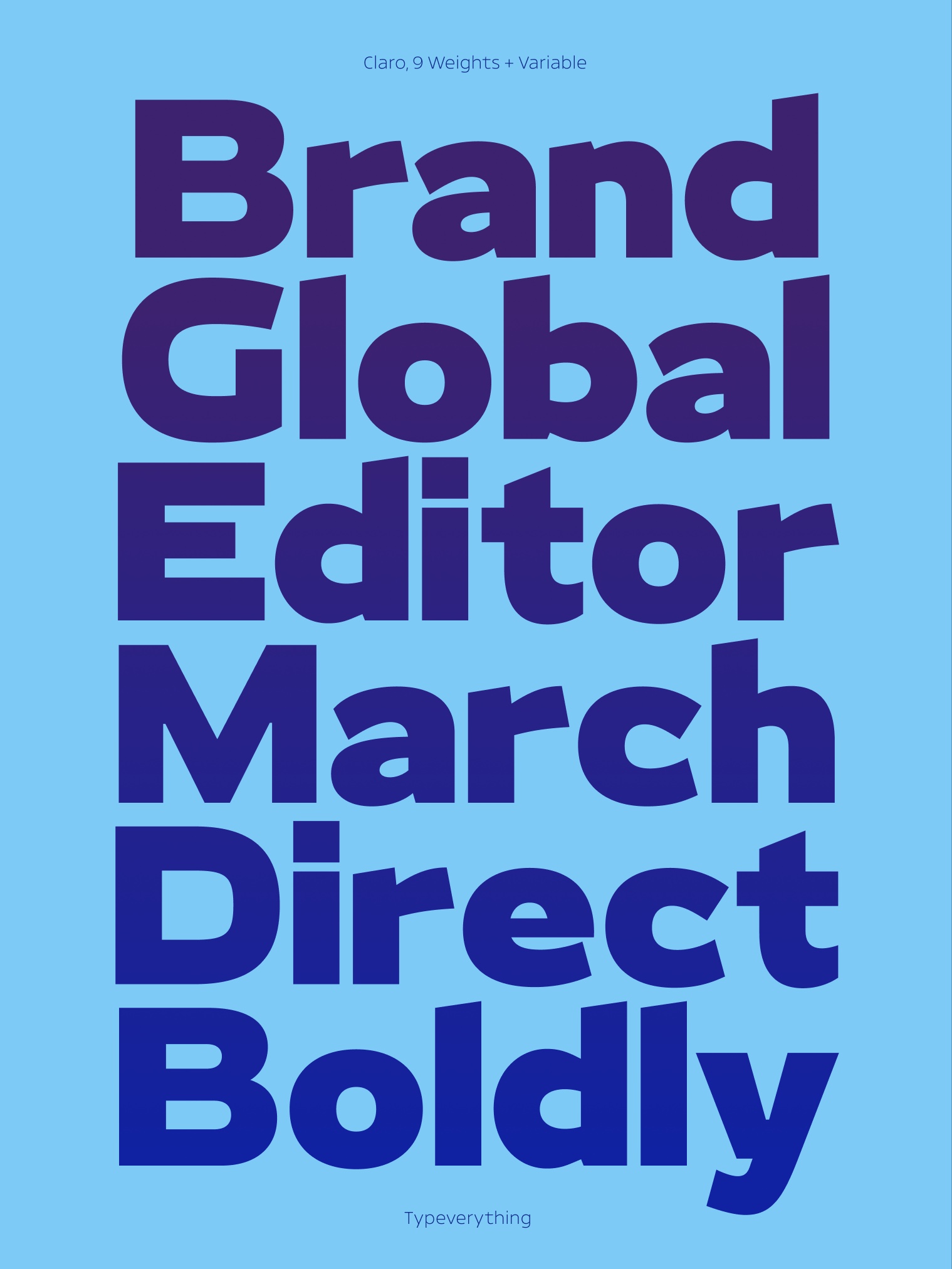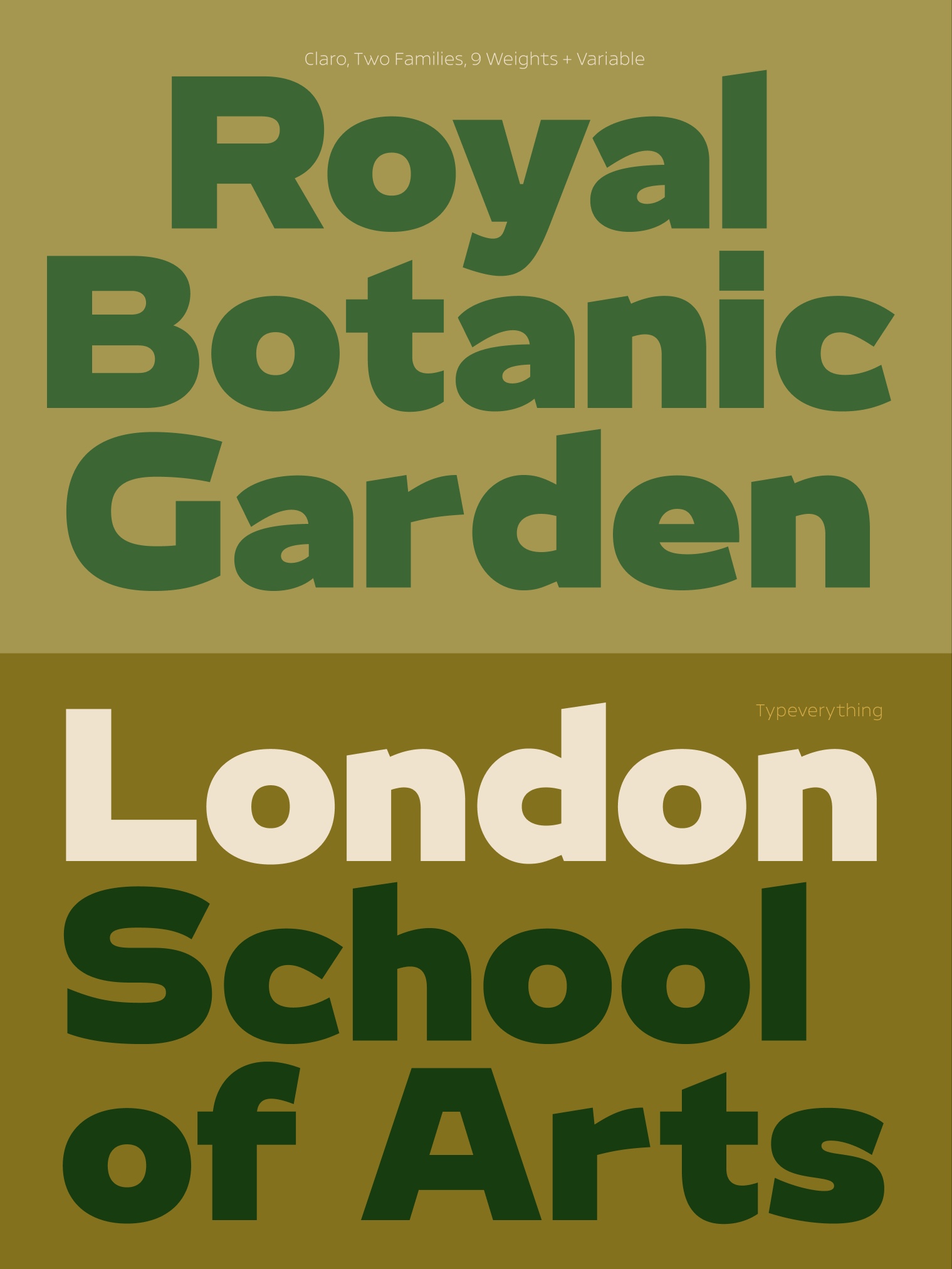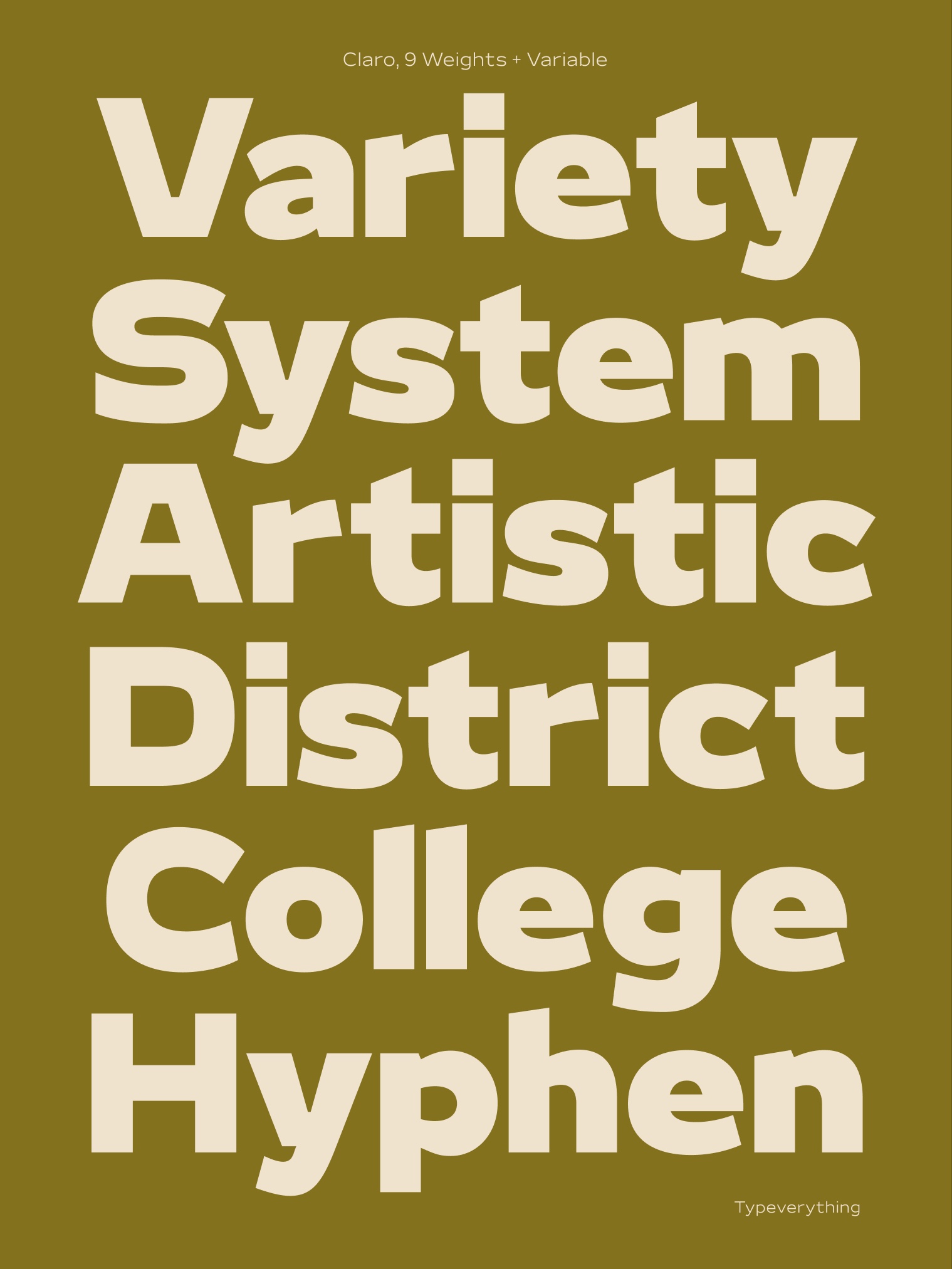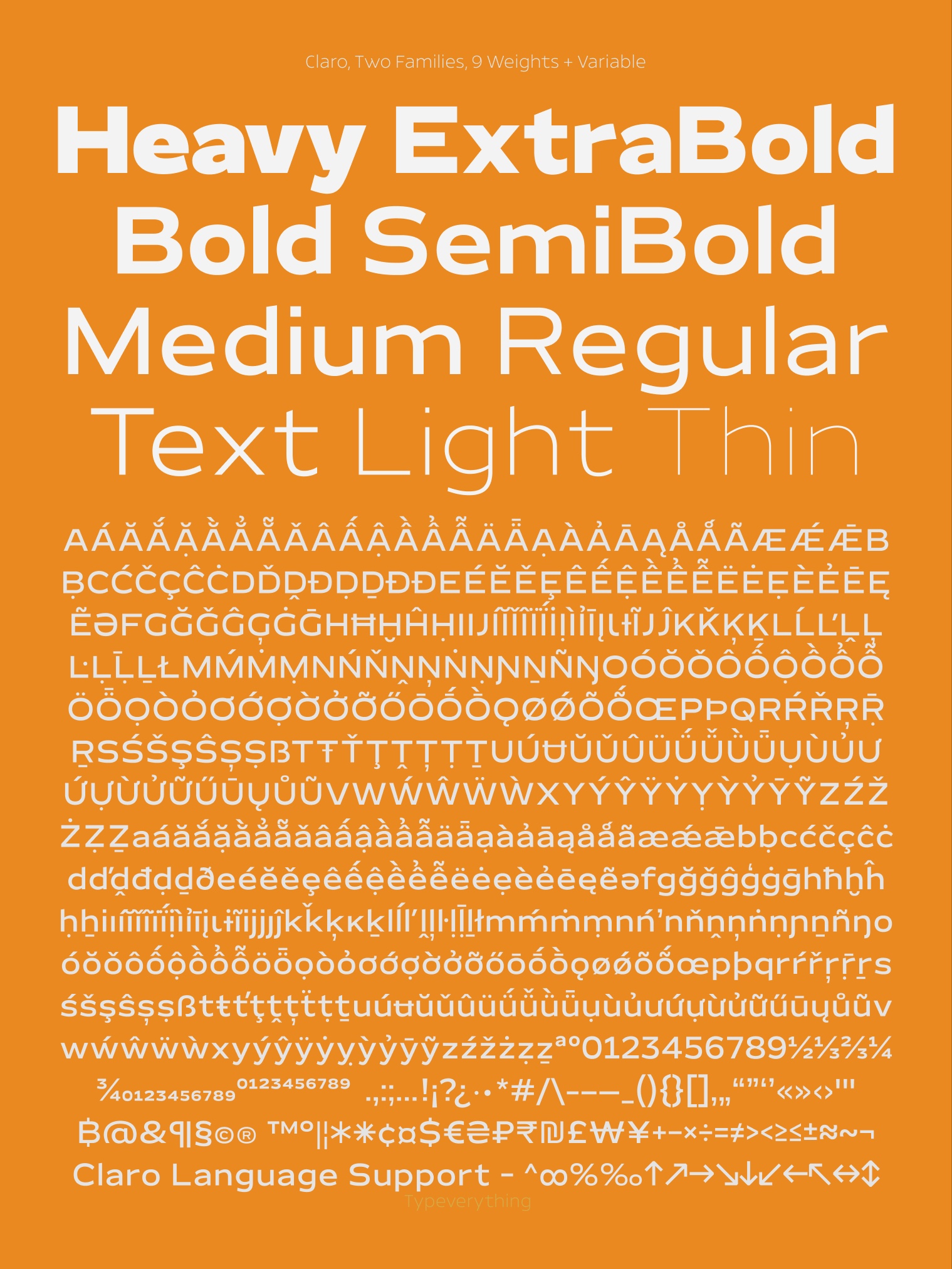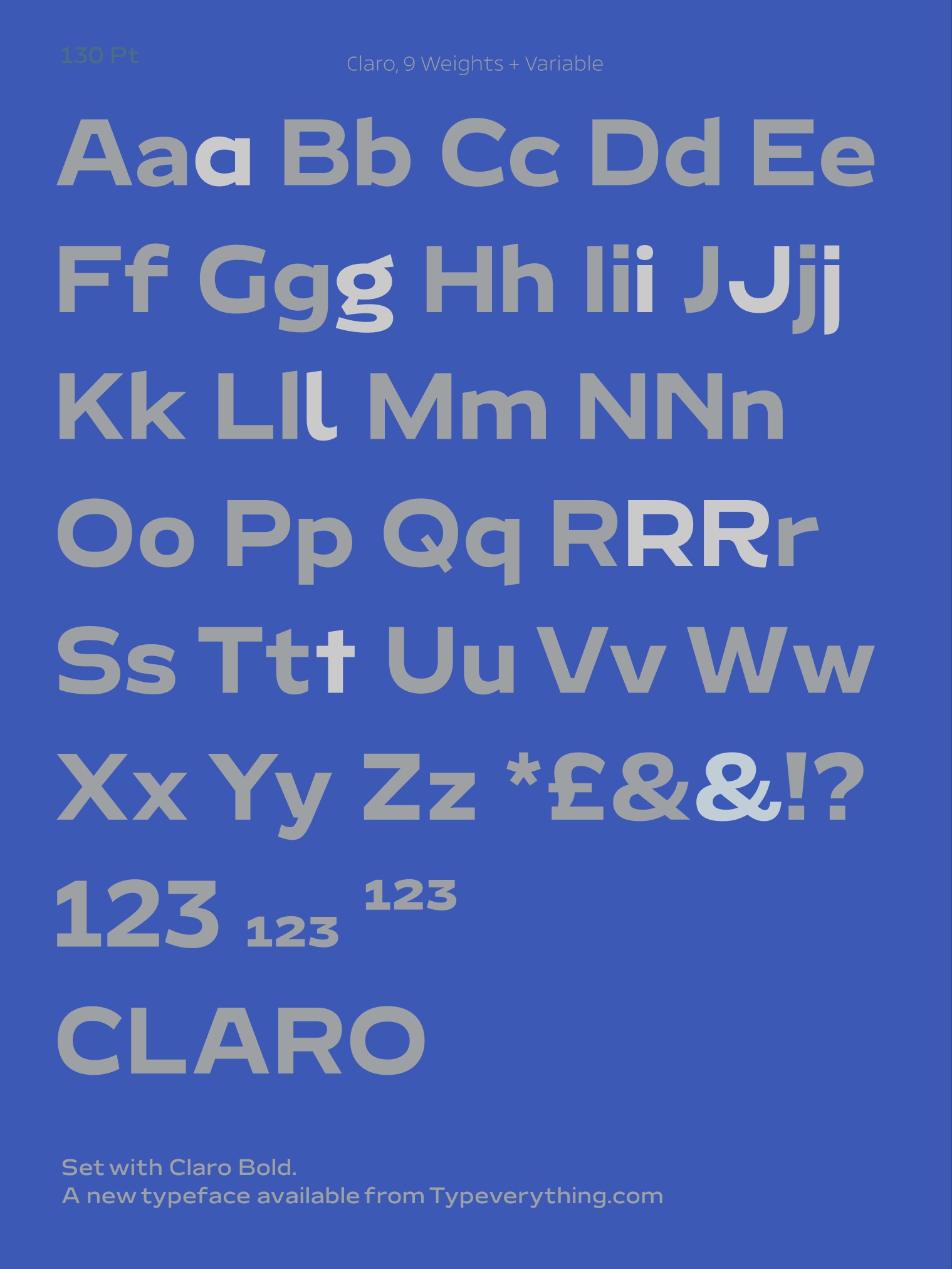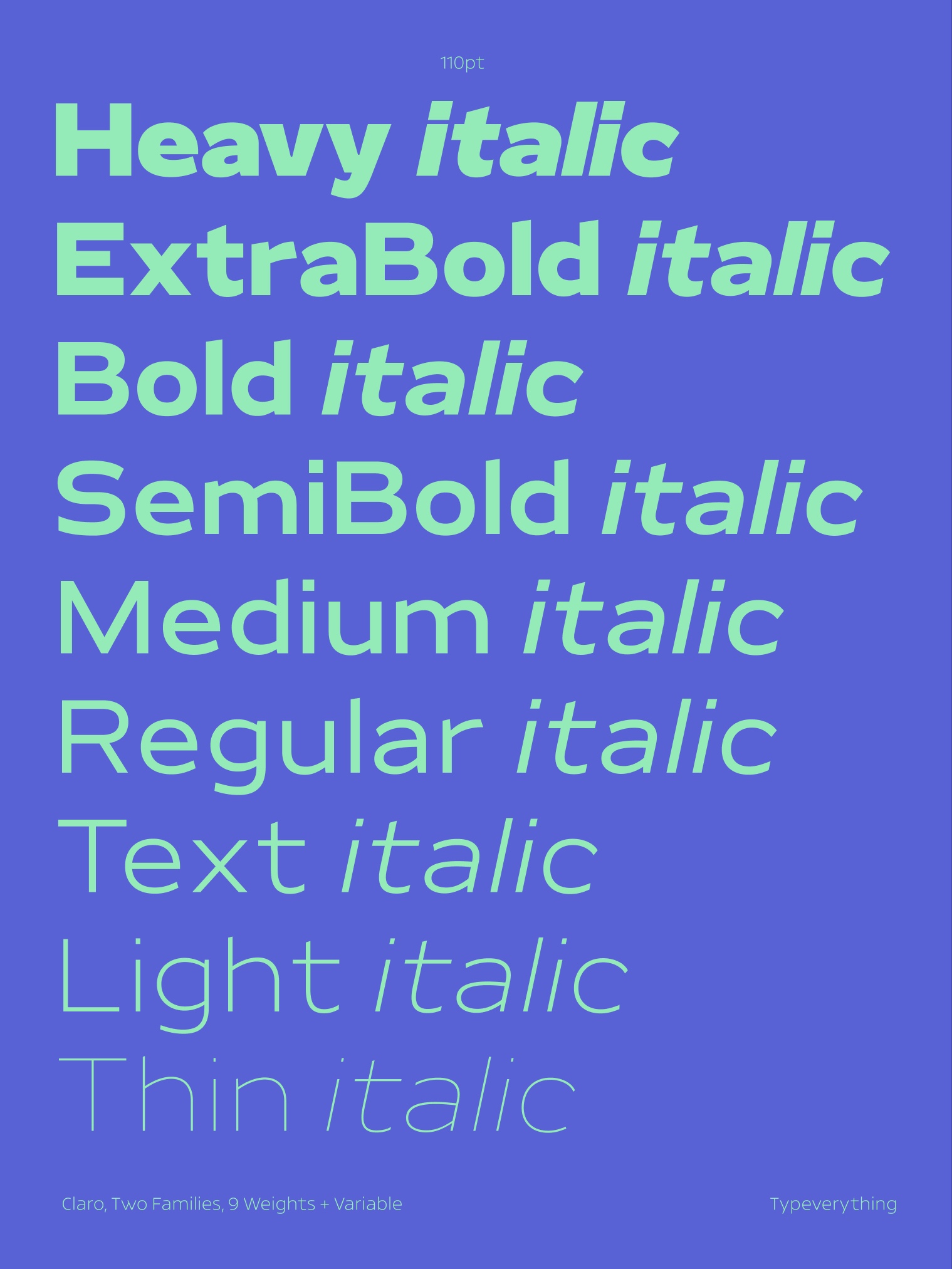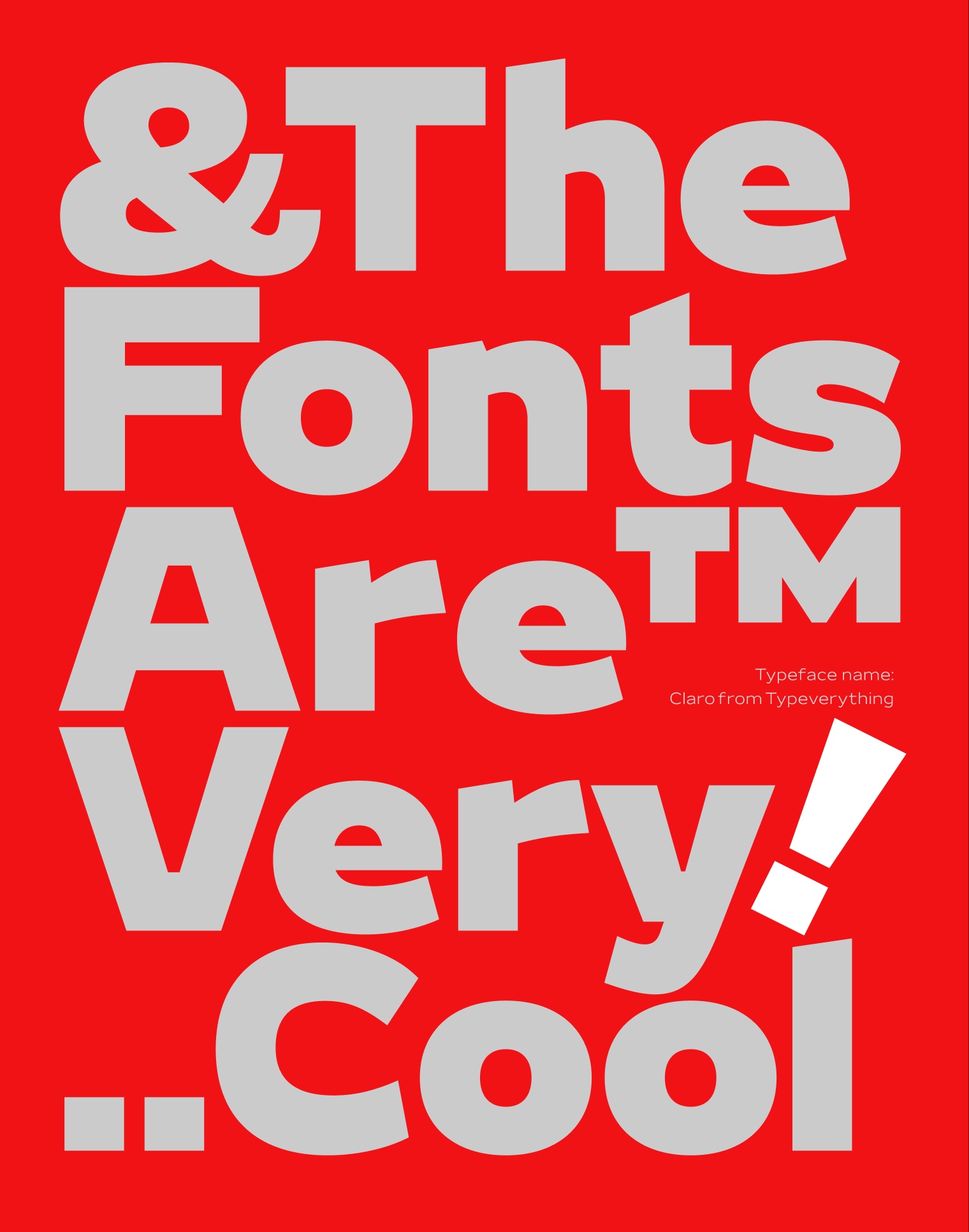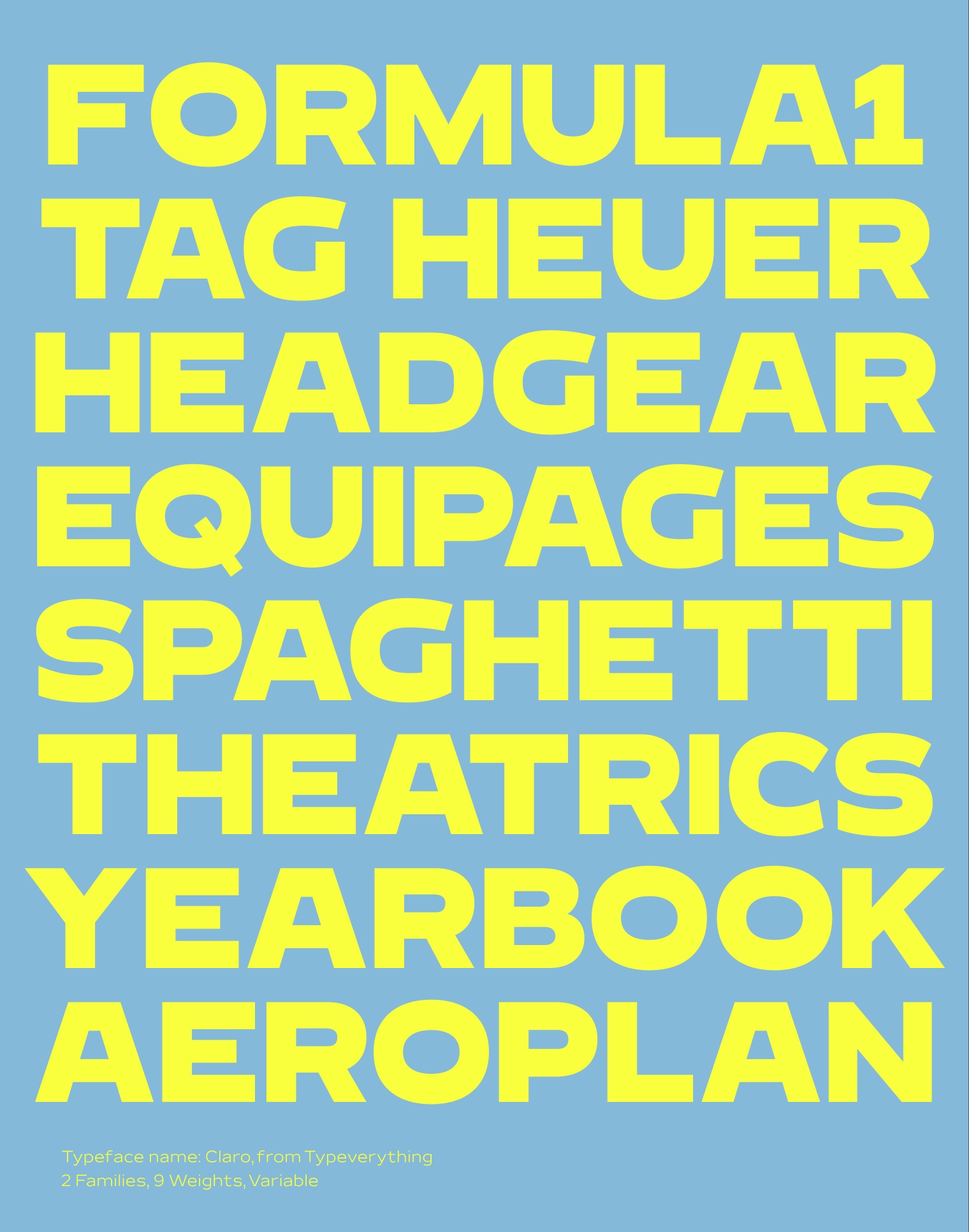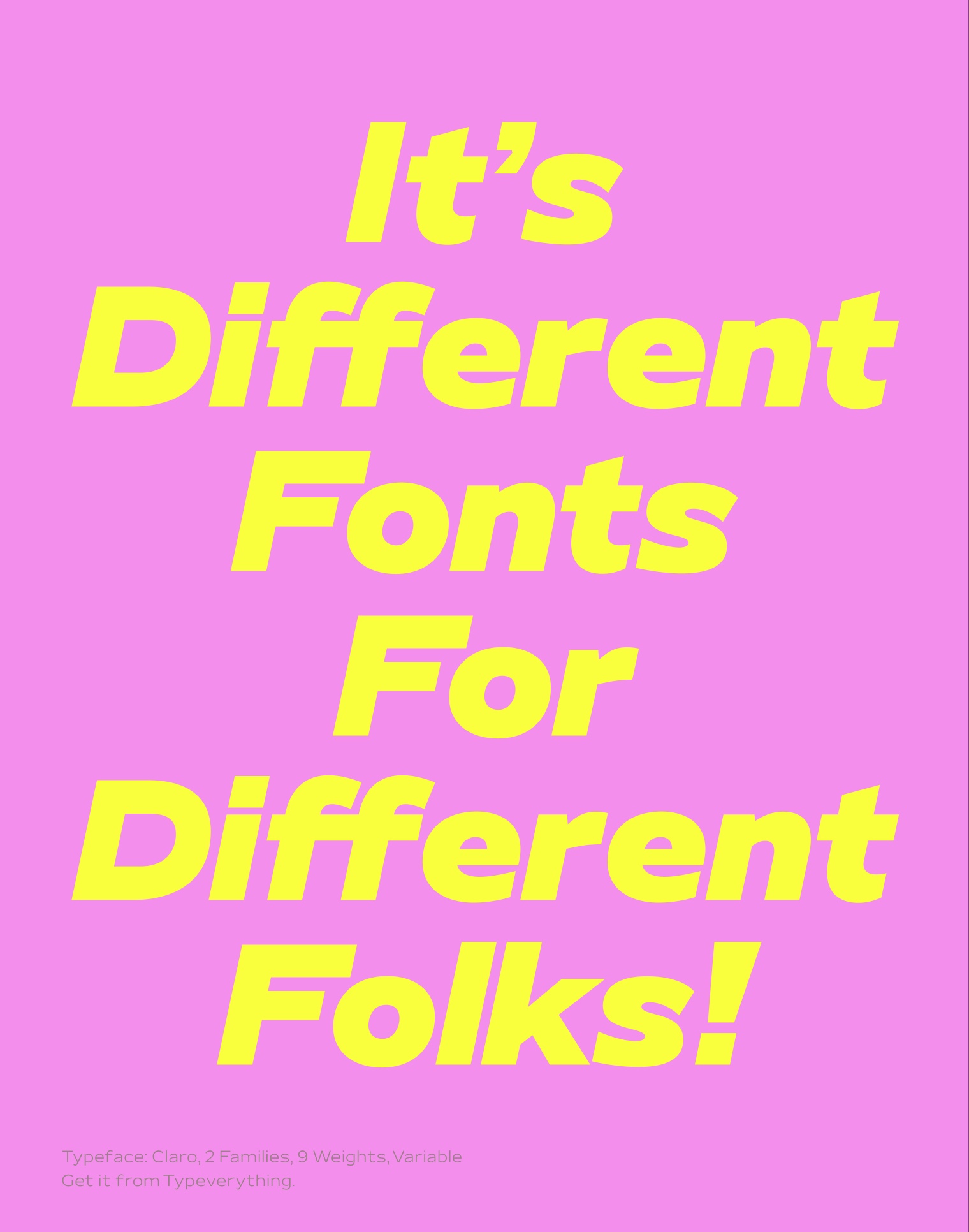
Claro Typeface by Typeverything.com
Claro is a versatile sans-serif with a bold, masculine presence and a sporty edge. Drawing inspiration from the rugged grotesque lettering seen on New York trucks in the 1890s, Claro blends historical grit with modern precision. Its wider-than-normal proportions give it strength and impact, while subtle humanistic details keep it warm and approachable. Available in two families (upright and italic) across nine weights plus a single Variable Font covering the full range, Claro adapts effortlessly from powerful headlines to clean, readable text. A set of stylistic alternates allows for further customization, making it easy to craft a distinctive voice for logotypes, branding, or editorial work.